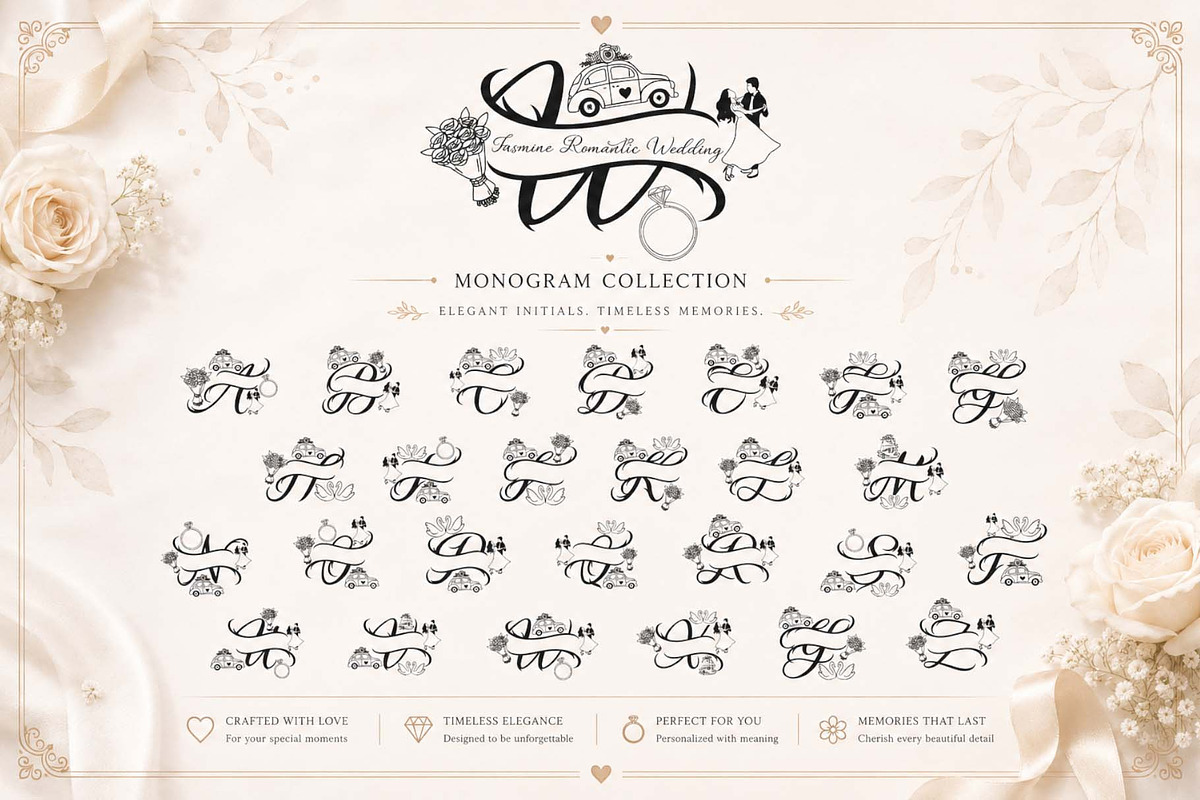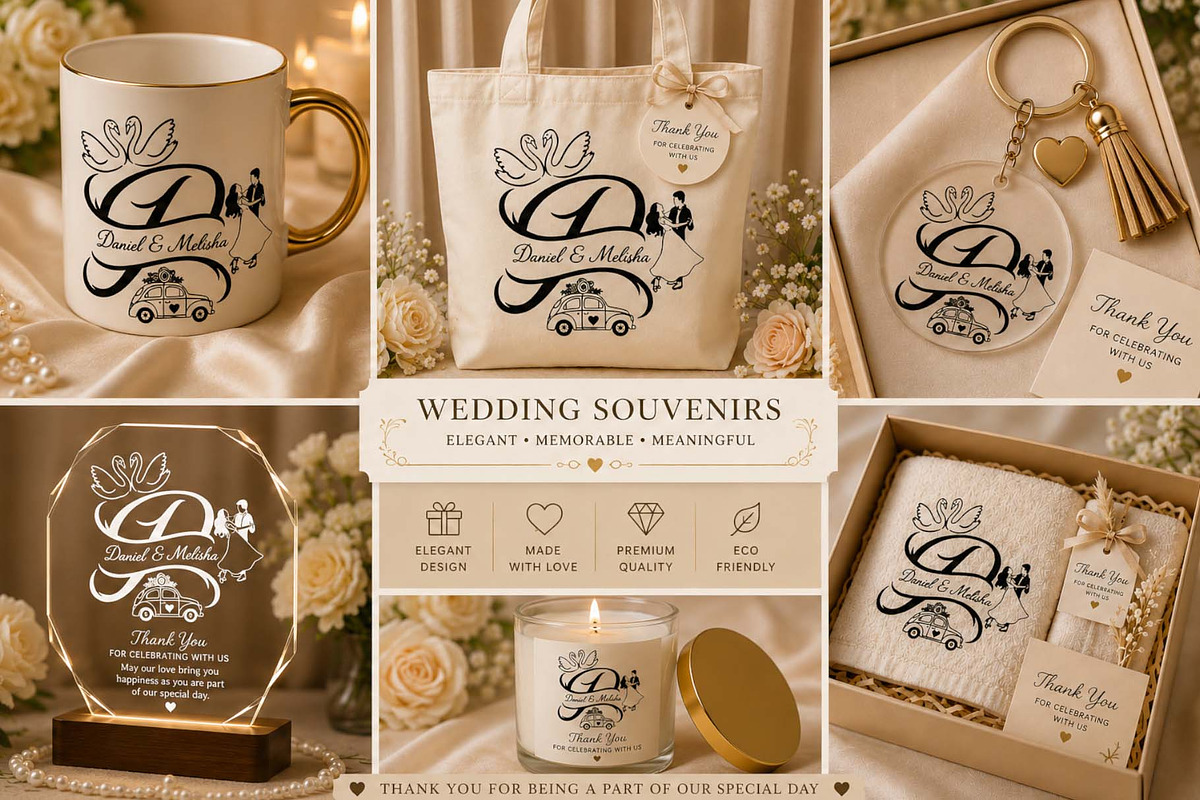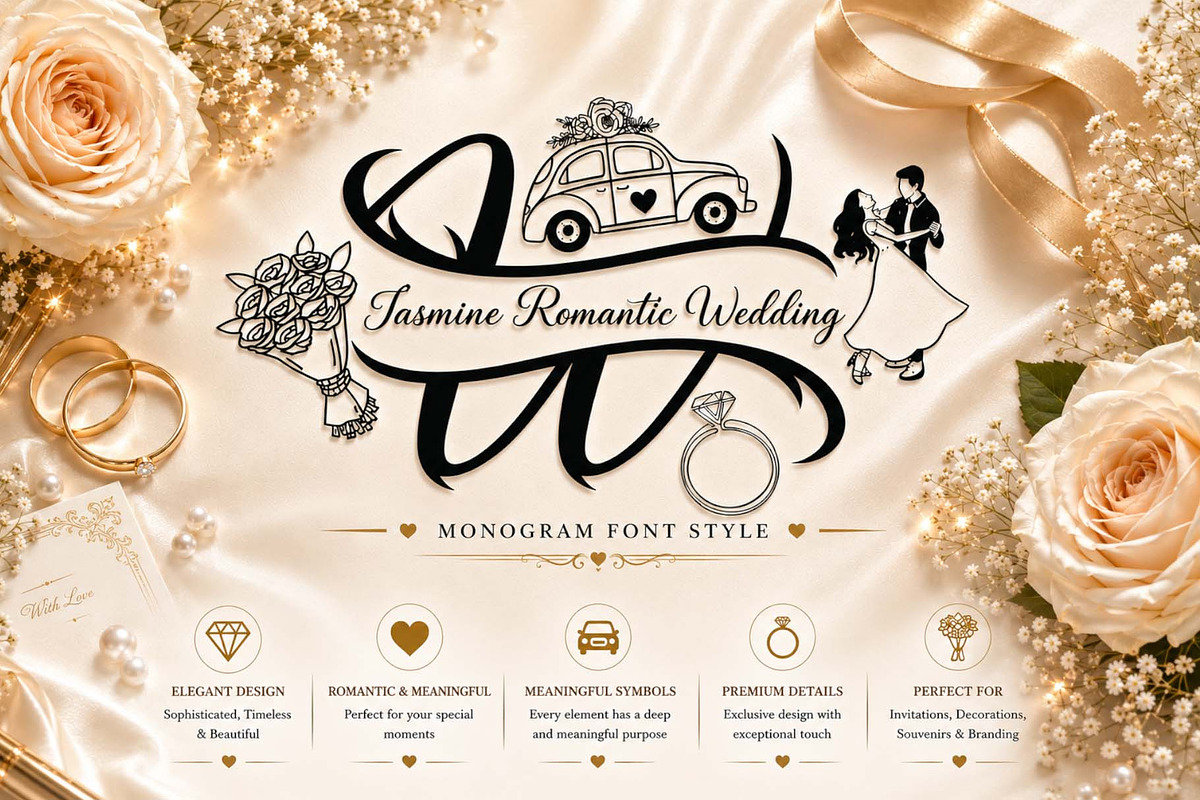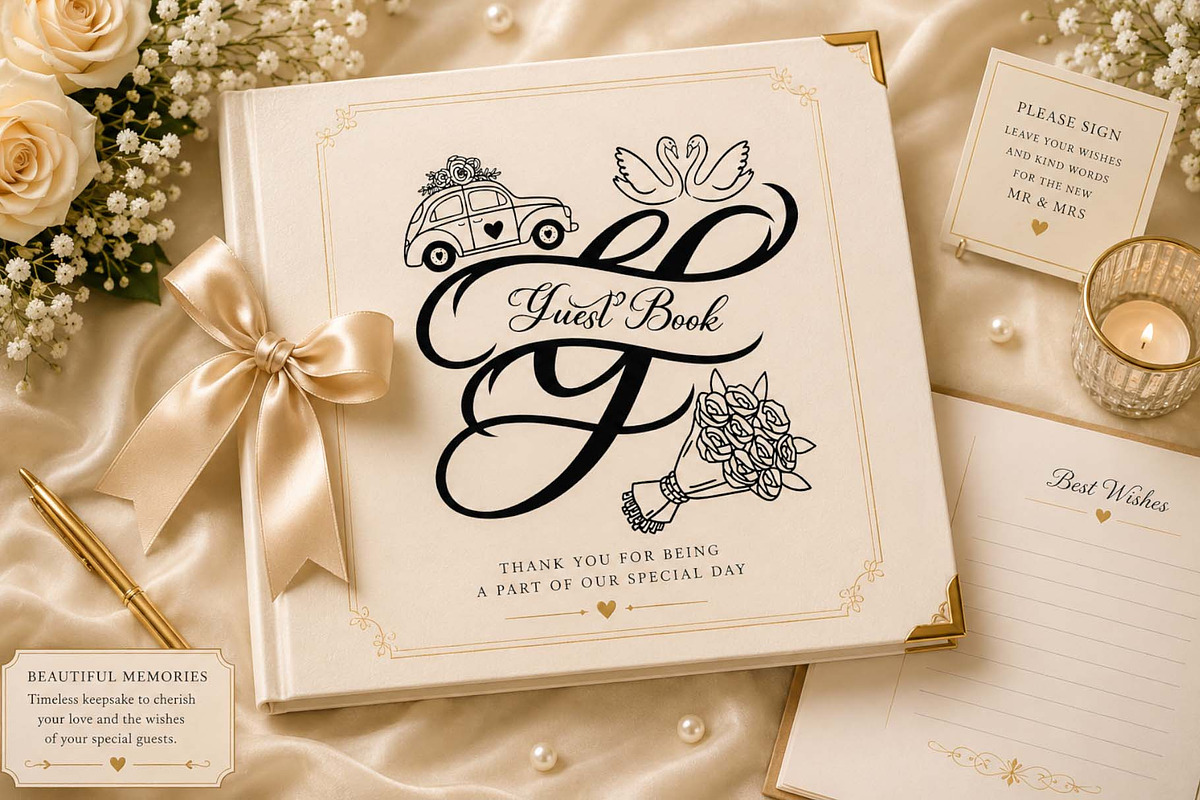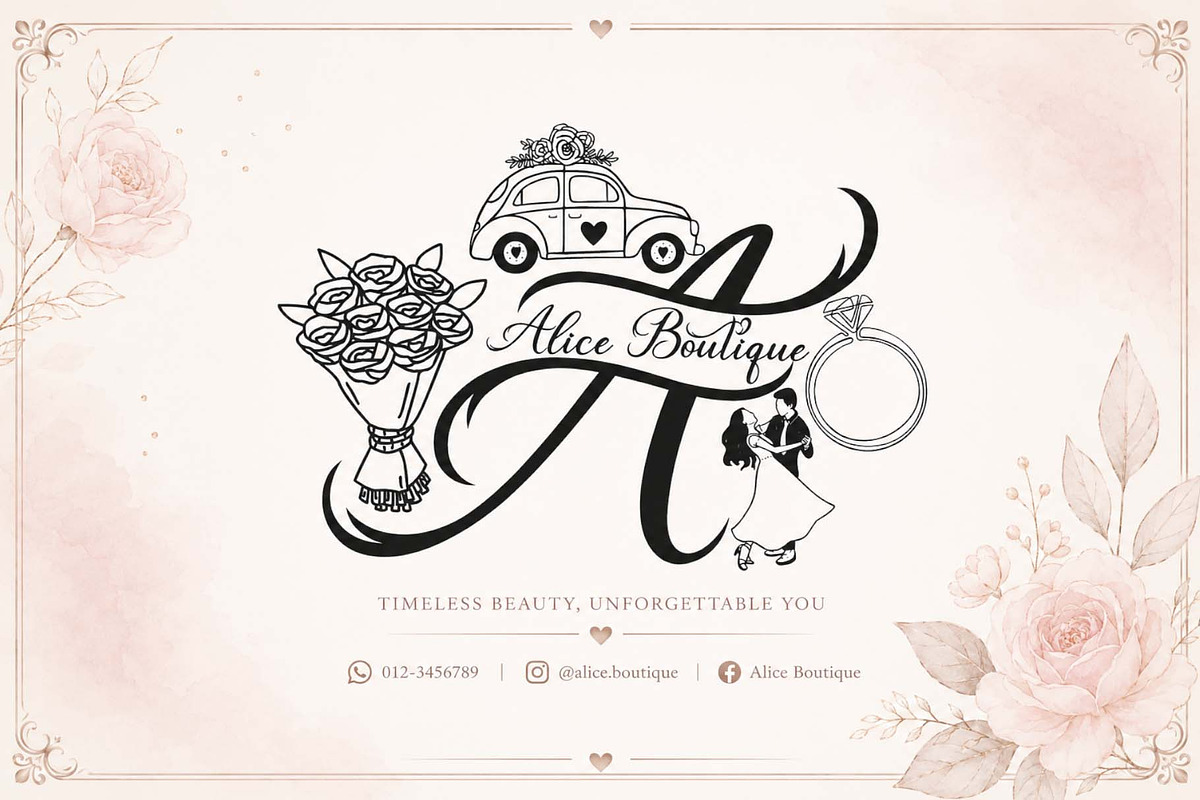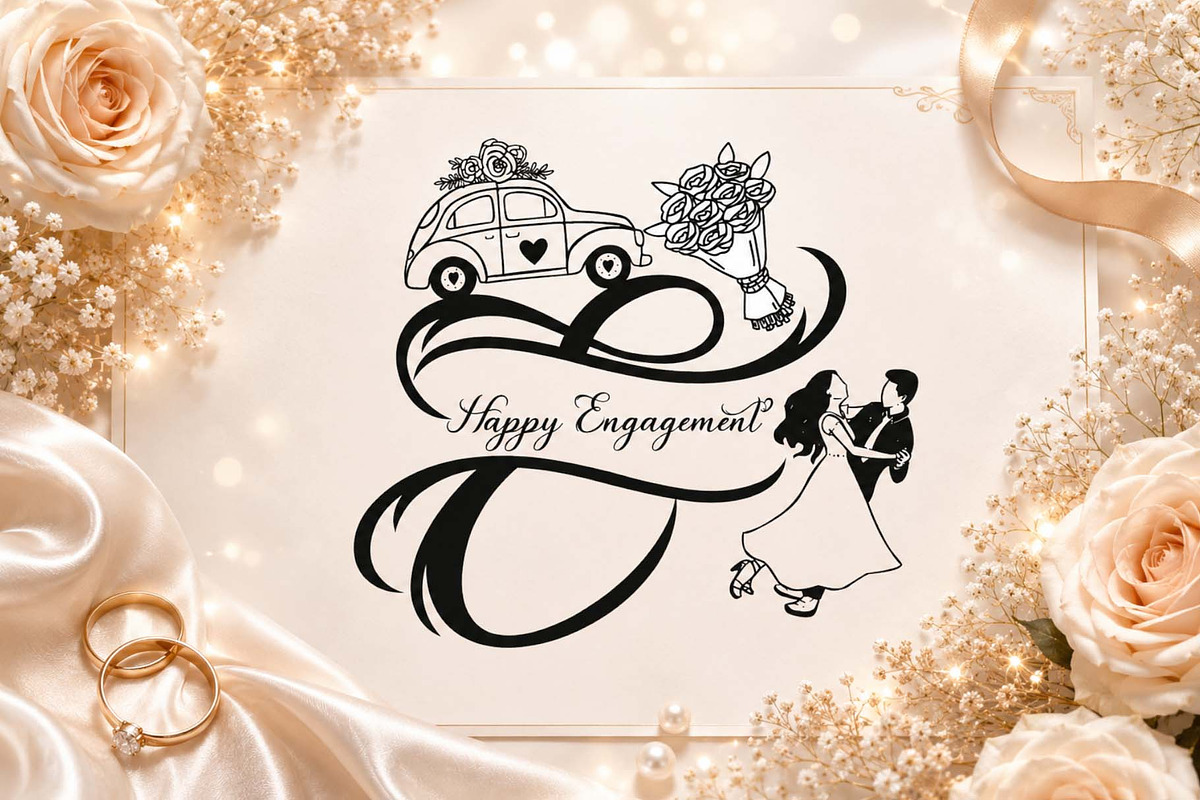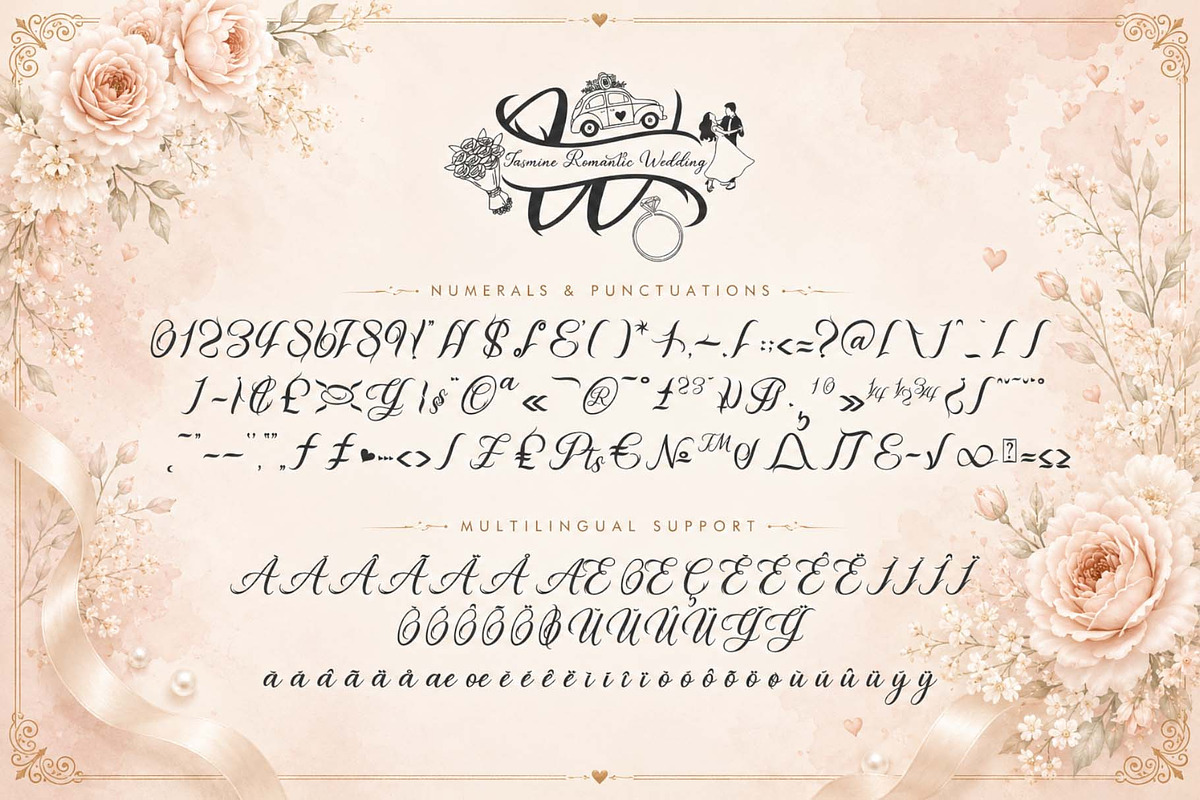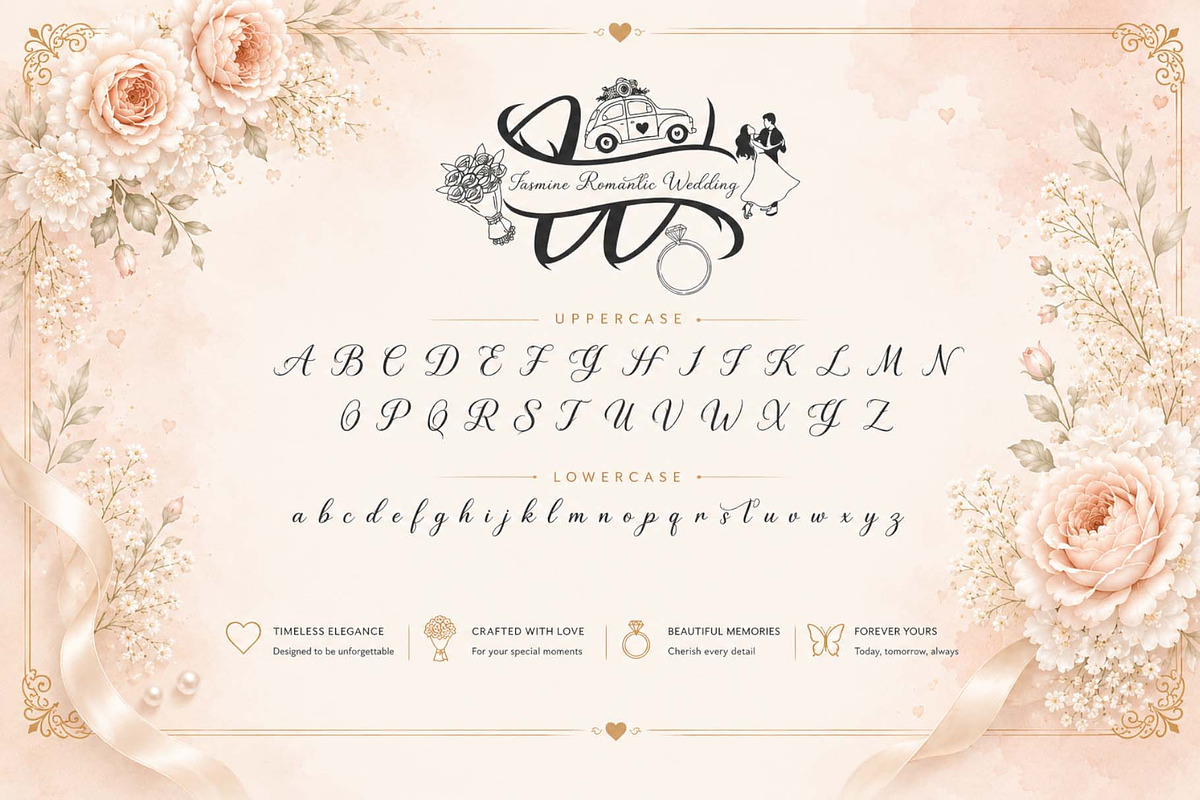
Jasmine Romantic Wedding Monogram
Jasmine Romantic Wedding Monogram is an elegant and luxurious monogram font collection designed to celebrate love and timeless romance. Featuring beautifully intertwined initials adorned with wedding-inspired elements such as bouquets, rings, vintage cars, and romantic couple silhouettes, each monogram creates a personalized and sophisticated touch for wedding invitations, branding, stationery, keepsakes, and special event designs. Perfect for adding charm, elegance, and unforgettable memories to every celebration.